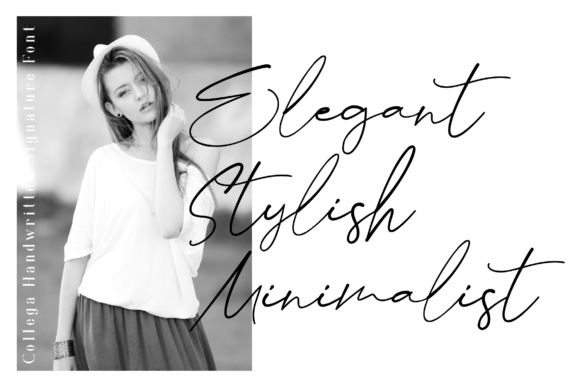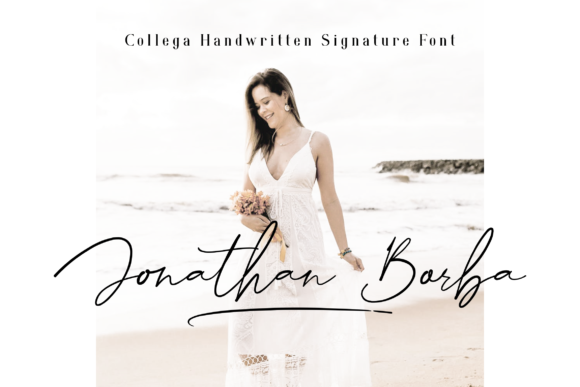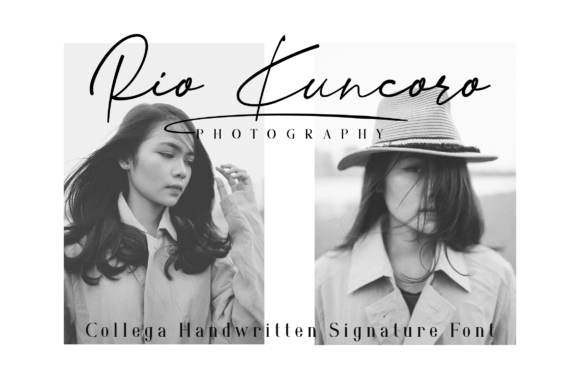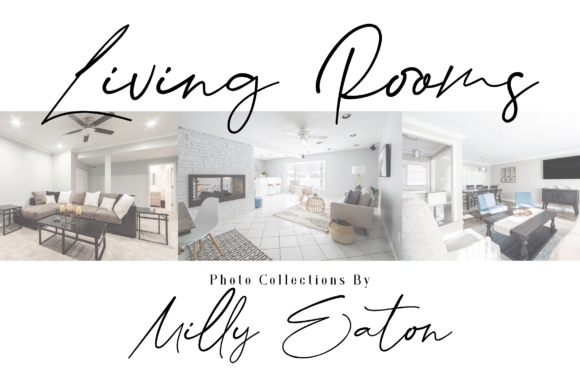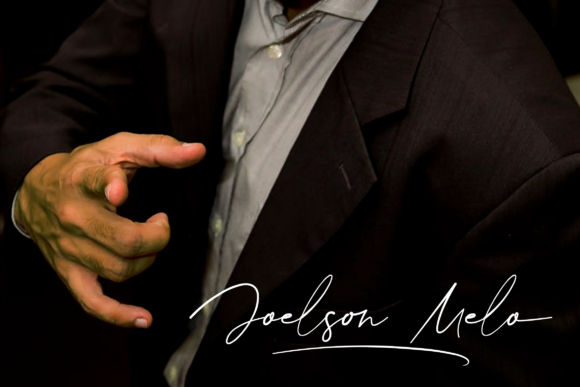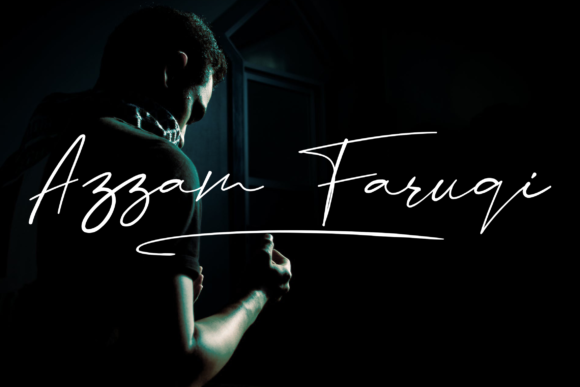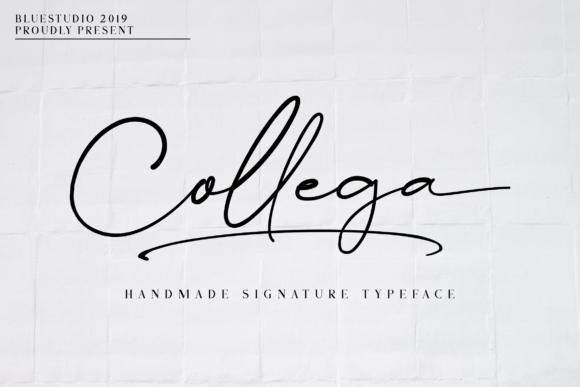
Introducing Collega Font: The Bold and Unique Script for Designers and Crafters
In the world of typography, fonts play a crucial role in conveying messages, expressing emotions, and creating visual identities. For designers and crafters, finding the perfect font can be a daunting task, especially when looking for something that stands out from the crowd. This is where Collega Font comes in – a cool and bold script with a unique style that’s sure to inspire your next creative project.
The Story Behind Collega Font
Collega Font is a carefully crafted script that exudes confidence and sophistication. Its bold feel is perfect for making a statement, whether you’re designing a logo, creating a poster, or crafting a social media graphic. The font’s unique style is a result of meticulous attention to detail, ensuring that every letter and curve is precision-designed to create a cohesive and visually appealing look.
Key Features of Collega Font
- Bold and Unique Style: Collega Font boasts a bold and unique style that’s sure to grab attention. Its distinctive curves and lines make it perfect for creating eye-catching designs.
- Script Font: As a script font, Collega Font is ideal for adding a touch of elegance and sophistication to your designs.
- Highly Versatile: Whether you’re designing a logo, poster, or social media graphic, Collega Font is highly versatile and can be used in a variety of contexts.
- Easily Readable: Despite its bold style, Collega Font is easily readable, making it perfect for use in both digital and print designs.
What Makes Collega Font Stand Out?
So, what sets Collega Font apart from other fonts? Here are a few key factors that make it a standout:
- Unique Letterforms: Collega Font features unique letterforms that are carefully designed to create a cohesive and visually appealing look.
- Attention to Detail: Every aspect of Collega Font has been meticulously crafted, from the curves and lines to the spacing and kerning.
- Flexibility: Collega Font can be used in a variety of contexts, from bold headlines to elegant body copy.
How to Use Collega Font in Your Designs
Ready to get started with Collega Font? Here are a few tips on how to incorporate it into your designs:
- Pair it with a Neutral Font: Pair Collega Font with a neutral font to create visual interest and add contrast to your design.
- Use it as a Headline Font: Collega Font is perfect for use as a headline font, adding a touch of boldness and sophistication to your design.
- Experiment with Colors: Collega Font looks great in a variety of colors, so don’t be afraid to experiment and find the perfect hue for your design.
| Font Name | Collega Font |
| Author | Bluestudio |
In conclusion, Collega Font is a cool and bold script that’s sure to inspire your next creative project. With its unique style, versatility, and attention to detail, it’s the perfect font for designers and crafters looking to make a statement. So why wait? Get inspired by Collega Font today and take your designs to the next level!